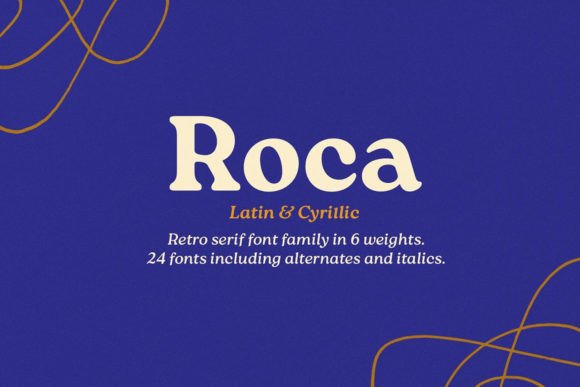
Introducing Roca Font, the ultimate choice for all your poster design needs. Created by the renowned My Creative Land, this modern and stylish serif font is a true masterpiece that seamlessly combines sophistication with contemporary design.
With its clean lines and sharp edges, Roca Font exudes a bold and confident aura that instantly captures attention. Each letter has been meticulously crafted to perfection, ensuring a flawless and polished appearance in every composition. The classic serifs effortlessly add a touch of elegance and refinement, adding a unique charm to your designs.
What sets Roca Font apart is its incredible versatility. Whether you're working on a vintage-inspired poster or a cutting-edge advertisement, this font adapts flawlessly to any project, making it the perfect choice for designers of all levels. Its adaptability allows you to experiment with different styles and layouts, unleashing your creativity to its fullest potential.
One of the standout features of Roca Font is its PUA encoding. This means that you have easy access to all the intricate glyphs and swashes, enabling you to effortlessly elevate your designs and add captivating details. Unlock a world of possibilities with the extensive range of characters and special ornaments that Roca Font offers.
Beyond its visual appeal, Roca Font also evokes emotions. It inspires a sense of confidence, elegance, and sophistication, making it an ideal choice for brands and businesses looking to make a lasting impression. Whether you want to convey a sense of luxury or capture the essence of a bygone era, this font has the power to evoke the desired emotions in your audience.